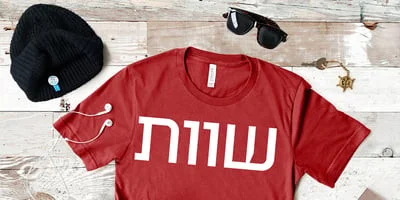
Fried Coteret MF Font
Fried Coteret MF Font is perfect for vintage restaurants, retro diners, nostalgic cafes, comfort food packaging, classic cookbook designs, old-fashioned signage, heritage food brands, traditional recipe collections, and warm hospitality communications. This charming typeface brings homestyle warmth and culinary nostalgia to projects requiring authentic comfort food appeal and traditional kitchen atmosphere.
What makes Fried Coteret MF Font exciting is its homestyle comfort that captures the essence of traditional cooking and family recipe heritage with remarkable warmth and authentic culinary character that evokes memories of home cooking. The font features friendly letterforms with rustic charm and comfortable proportions that reflect the intimacy of family kitchens and traditional food preparation. Its nostalgic personality and comforting nature make it irresistible for food brands seeking typography that communicates authentic home cooking while creating emotional connections through culinary tradition and family food memories.
The Fried Coteret MF Font family includes homestyle weights and culinary styles: Light, Regular, Medium, Bold, and rustic variations with recipe alternates and kitchen symbols. Each weight maintains the font's comforting character while offering designers creative flexibility for food service branding and hospitality design applications requiring authentic comfort food atmosphere and traditional culinary appeal.
Whether you're designing for comfort food restaurants or traditional food brands, Fried Coteret MF Font offers designers a warm, comfort-focused typeface solution. The font's homestyle aesthetics and nostalgic styling make it ideal for family restaurants, comfort food brands, traditional bakeries, and heritage food producers. Its welcoming presence ensures your message communicates authentic comfort and culinary tradition while maintaining excellent readability. The comprehensive character set includes culinary symbols and recipe notation, making it perfect for creating appetizing headlines and brand identities that celebrate comfort food traditions and establish memorable connections with audiences seeking authentic homestyle dining experiences and traditional culinary comfort.